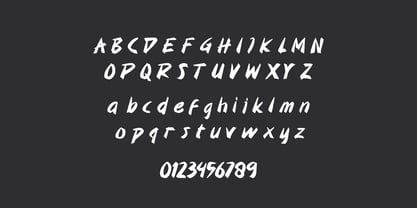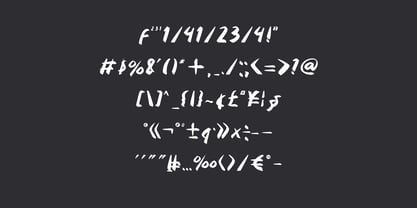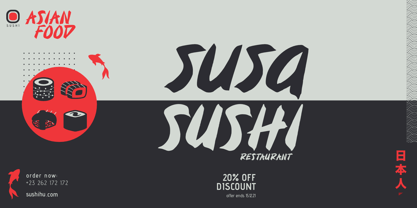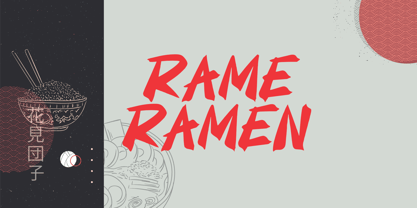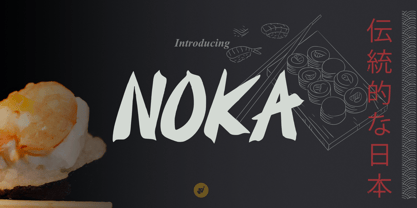
Noka Brush
The Noka Brush Font Family was designed by Wahyu Aji Prasetyo and published by WAP Type. Noka Brush contains 1 styles. More about this family
This brush font is inspired by the traditional Japanese calligraphy art (shodō), presenting a strong, dynamic, and authentic impression. The thick and expressive brushstroke style reflects the spirit of Japanese culture full of character and courage.
Suitable for:
• Japanese restaurant logo
• Japanese souvenir shop
• Japanese themed product branding
• Japanese cultural event poster
With a bold and handwritten letter shape, this font is able to provide a unique and instantly recognizable visual identity, reinforcing oriental and traditional nuances but still modern.